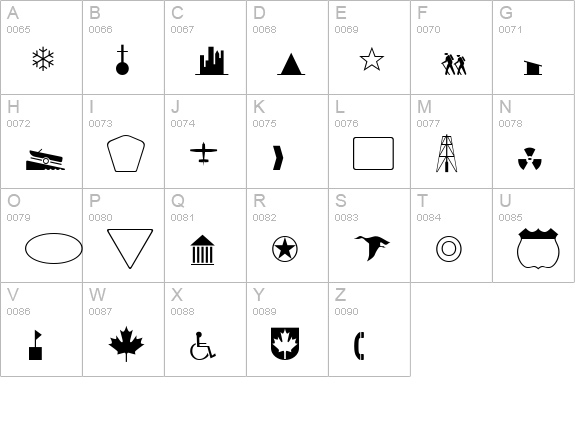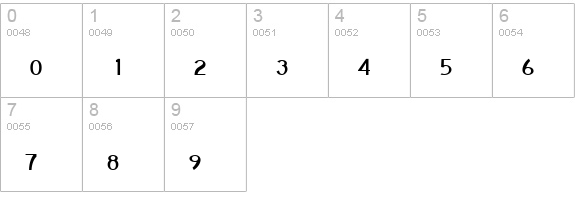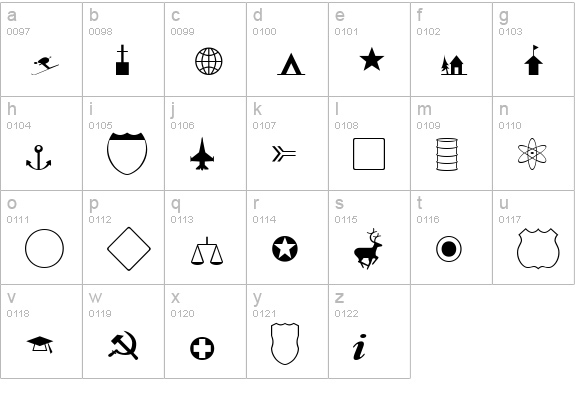
Cartographer SSi Font Details
Cartographer SSi is a meticulously crafted font that exudes elegance and sophistication. Its intricate details and clean lines make it perfect for projects that require a touch of refinement and class. This font is versatile and can be used for a wide range of design projects, from invitations to logos to branding materials. The best part about Cartographer SSi font is that it is available for free download at FontsMarket.com. This means that you can easily access this beautiful font and use it in your projects without any cost. Whether you are a designer looking to add a touch of sophistication to your work or someone looking for a high-quality font for personal use, Cartographer SSi is the perfect choice. Download it today and elevate your designs with this stunning typeface.